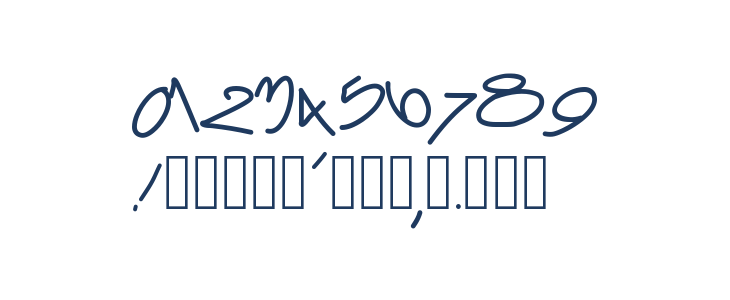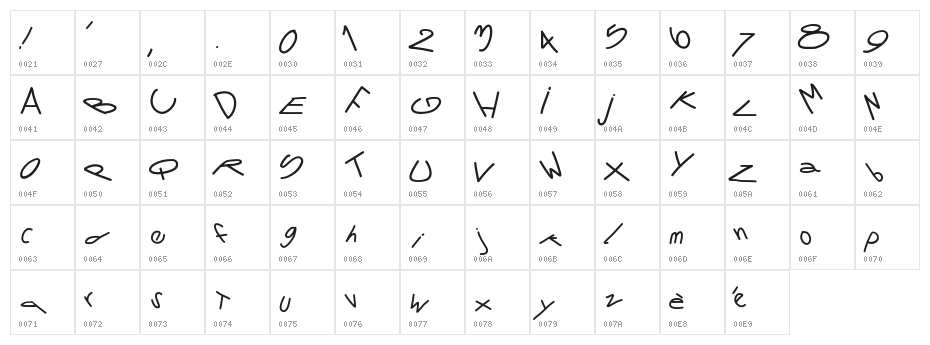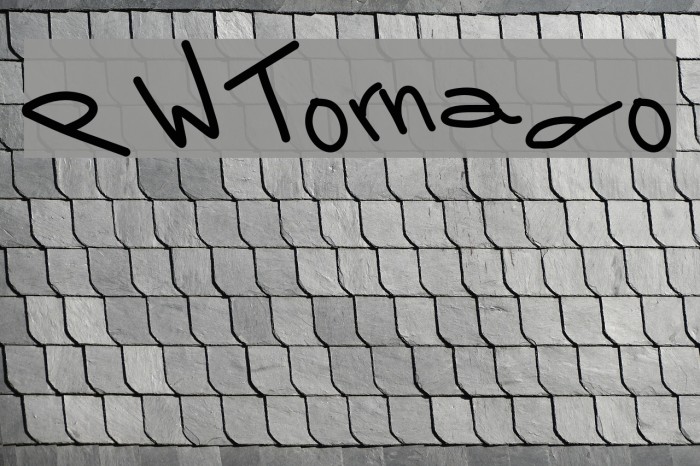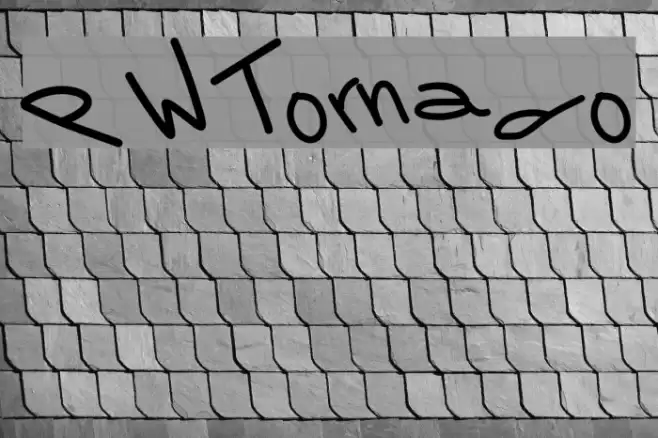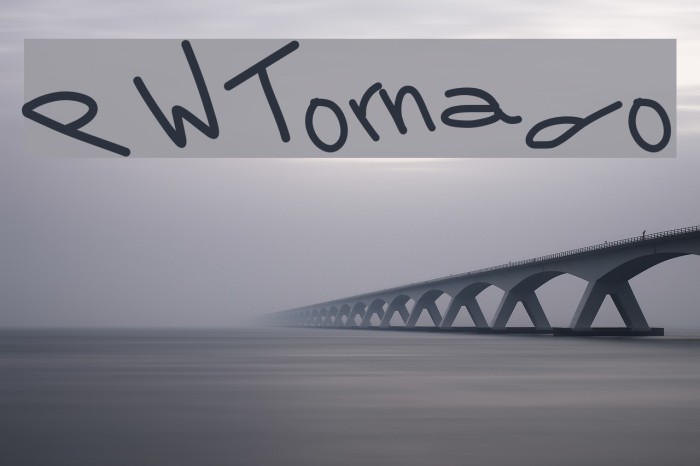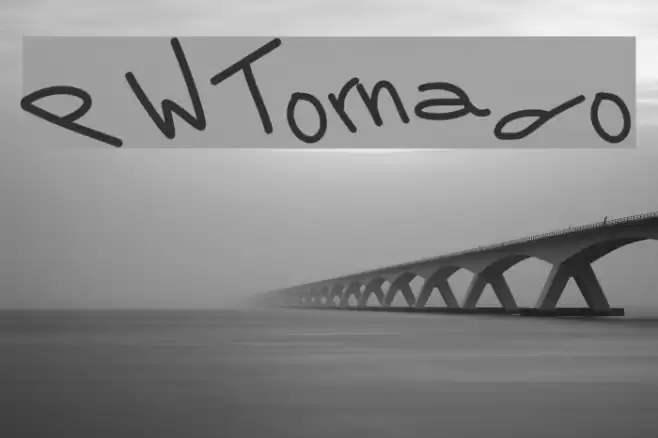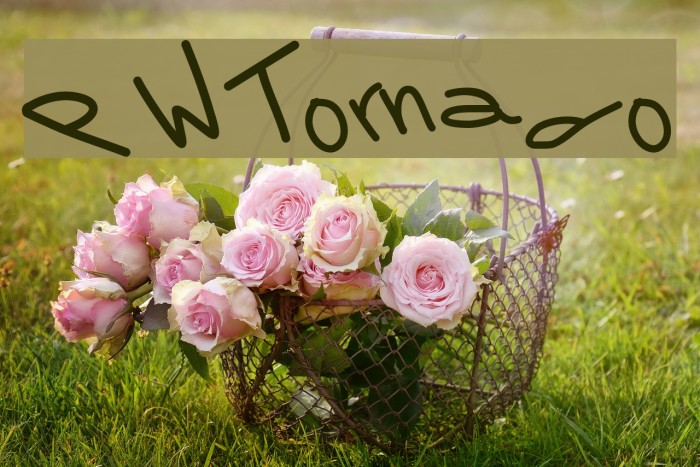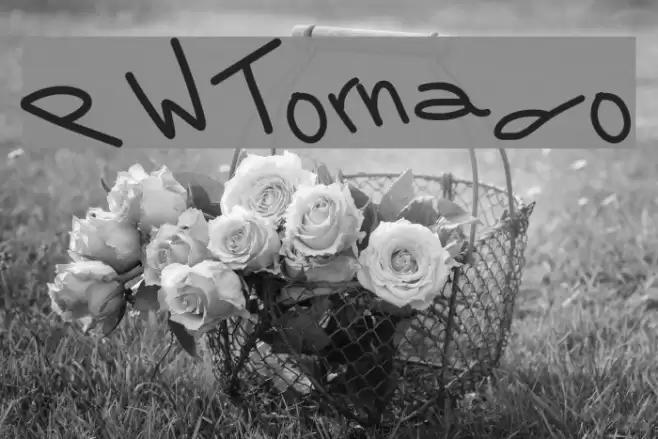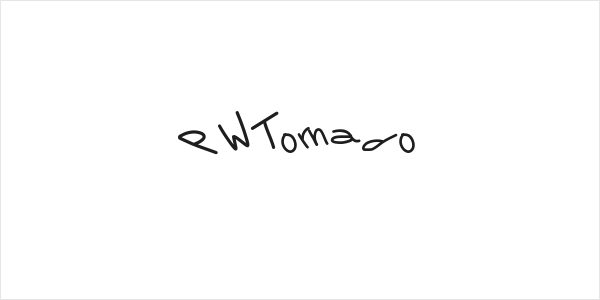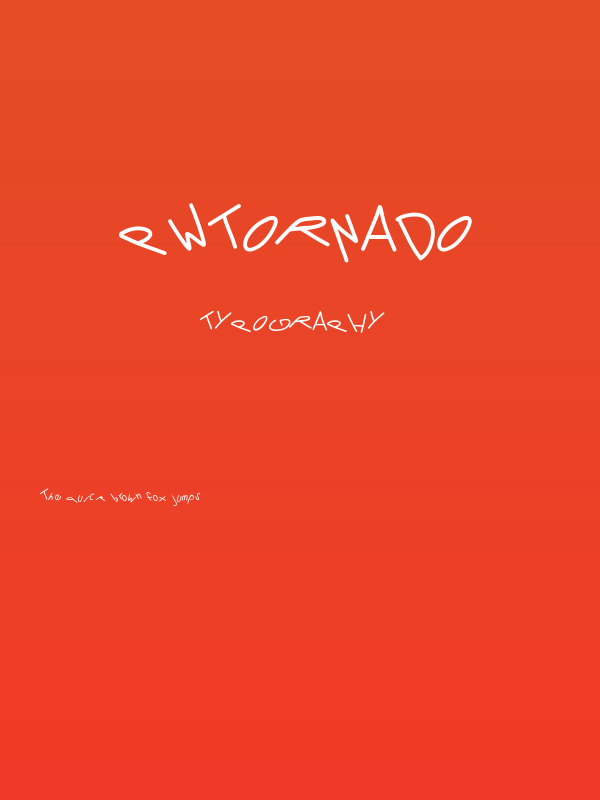
PWTornado Font
PWTornado Description
This font exhibits a dynamic and energetic style, characterized by its handwritten appearance with a playful twist. The letters are crafted with a casual, freeform flow, giving them a sense of movement and spontaneity. The strokes are uneven, with varying thickness that adds to the lively and informal feel. The uppercase and lowercase letters maintain a consistent style, while the numerals and special characters complement the overall design. This font is ideal for projects that require a personal touch or a creative flair, such as invitations, greeting cards, or artistic branding.
| Proposed Projects | Ideal for creative projects like invitations, greeting cards, and artistic branding. |